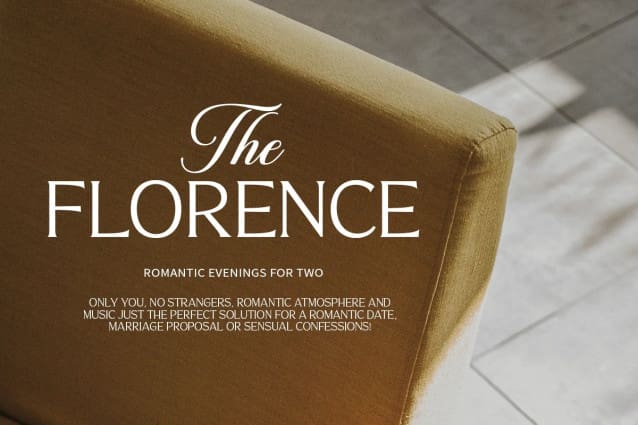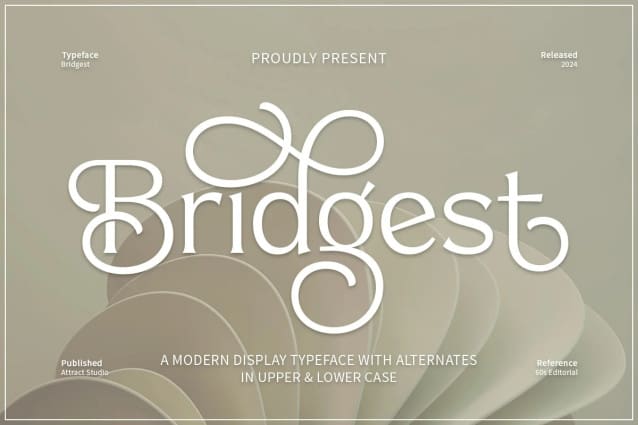
Bridgest Font
Bridgest Font is an old and modern style serif created with a desire for quality fonts. The number of alternatives is enormous, from simple styling alternatives to swashes, fasteners and substitutes.
Bridgest being a very versatile font with its classic shape and modern features, this font will be ideal for a variety of design projects from blog graphics, stylish quotes, wedding stationery, art prints and many others.